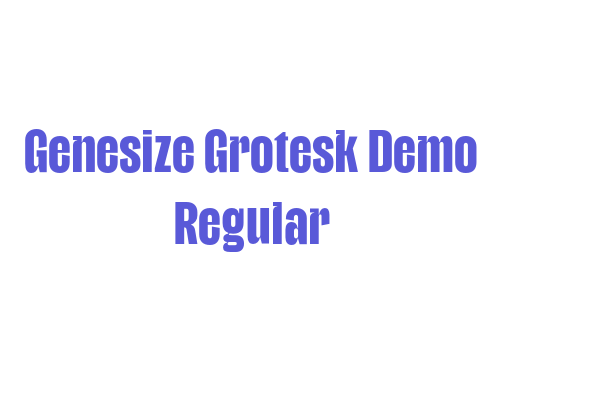
Genesize Grotesk Demo Regular is a basic sans-serif font designed by Muhammad Muammar. With a clean and modern style, this font is perfect for a wide range of design projects. Its simplicity and readability make it ideal for use in branding, advertising, and editorial design.
Font Name: Genesize Grotesk Demo Regular
Designer: Muhammad Muammar
Font Family: Genesize Grotesk Demo